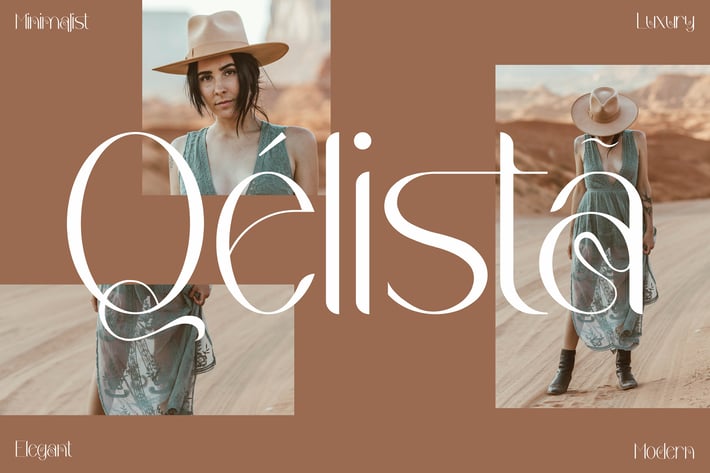
Qelista Stylish Serif Font
Qelista Stylish Serif is a modern and luxurious serif font designed to bring elegance and sophistication to your projects. With its refined curves and stylish details, Qelista is perfect for creating timeless visuals across both digital and print media. This font embodies a balance of minimalism and bold character, making it versatile for various design needs.
+ Elegant and modern serif design
+ Refined curves with unique alternates
+ Multilingual support
+ Branding & logo design
+ Editorials & magazines
+ Fashion & luxury projects
+ Social media graphics
+ Invitations & posters
+ Product packaging
+ Business cards & presentations
Add a touch of timeless elegance to your designs with Qelista Stylish Serif — where minimalism meets luxury.
+ Elegant and modern serif design
+ Refined curves with unique alternates
+ Multilingual support
+ Branding & logo design
+ Editorials & magazines
+ Fashion & luxury projects
+ Social media graphics
+ Invitations & posters
+ Product packaging
+ Business cards & presentations
Add a touch of timeless elegance to your designs with Qelista Stylish Serif — where minimalism meets luxury.